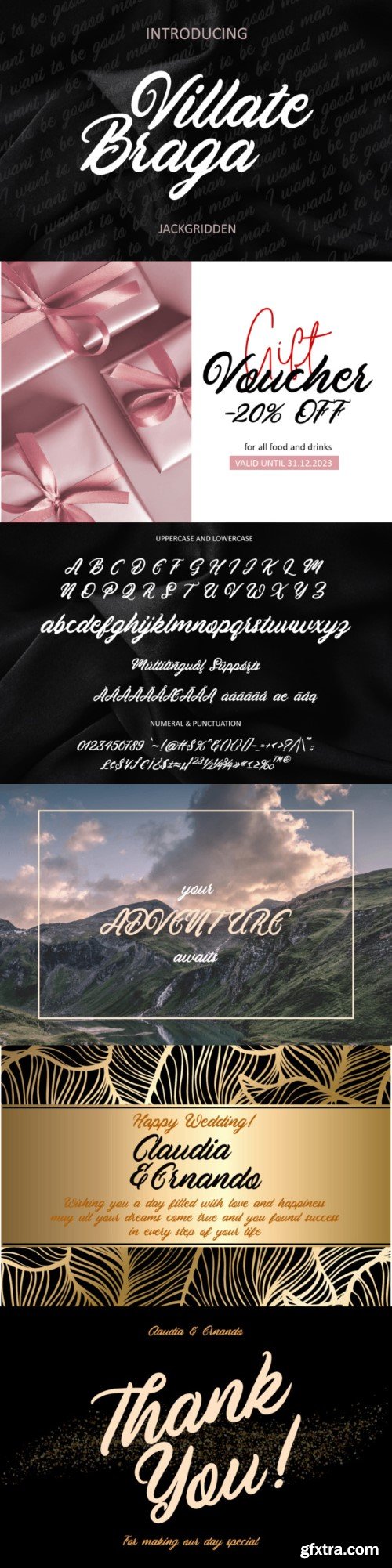
维拉泰·布拉加字体
Introducing “Villate Braga,” an elegant and versatile script font meticulously crafted to elevate your design projects. With its flowing lines, sophisticated curves, and authentic handcrafted feel, this font is perfect for branding, invitations, logos, packaging, and more. Whether you’re working on a romantic wedding invitation or a luxurious brand identity, Villate Braga adds a touch of elegance and charm to any project.